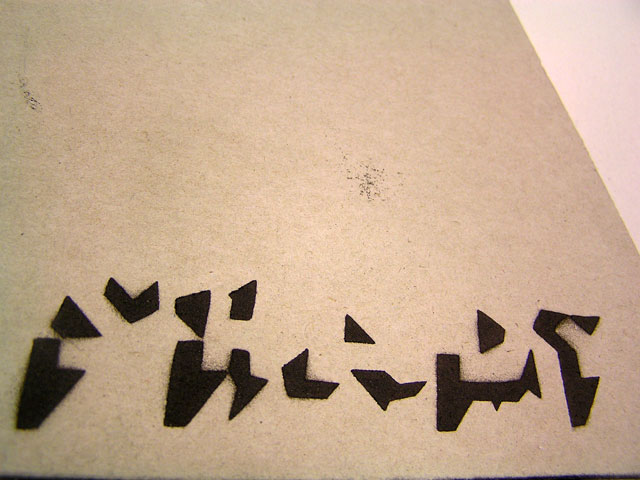
workshops, Bern 10 2007, daily
great job! i'm from argentina and i love this works. I'm studying graphic design here and i love that this kind of works we can do it here in argentina
You are a genius.
This work is truely stunning!!
the letters "O" "U" "V" "W" are very hard to read.
nice stuff in theire love it
Amazing. I love these!!
I love your work, your very talented :)
S I M P L Y G R E A T ! ! !